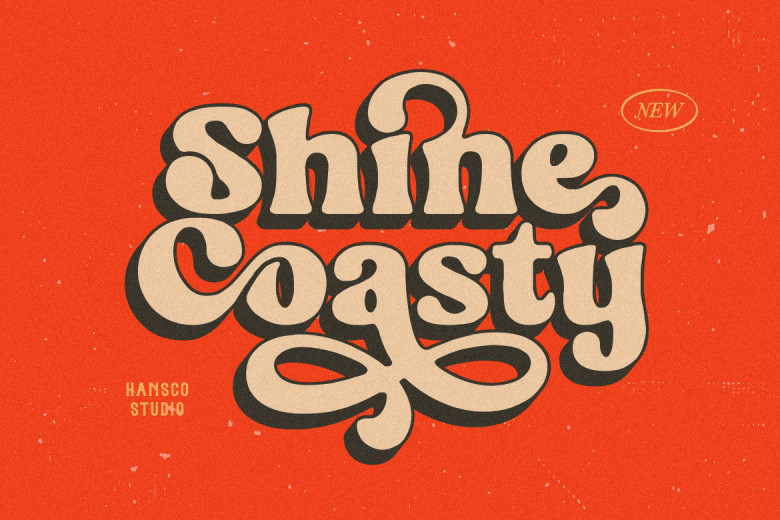
Shine Coasty Font
Shine Coasty features a retro serif font and bold display. Additionally, you’ll get alternate characters such as swashes for certain characters in this font that gives any design an old school aesthetic! Masterfully designed, Shine Coasty brings creativity to new levels.
This design can be used for logotypes, stickers, packaging design projects using Cricut machines, headlines for branding identity applications in apparel or t-shirt manufacturing industries as well as magazines or books published about them, websites or even YouTube videos or Instagram posts to create posters or other creative design projects.
Shine Coasty Retro Serif Font